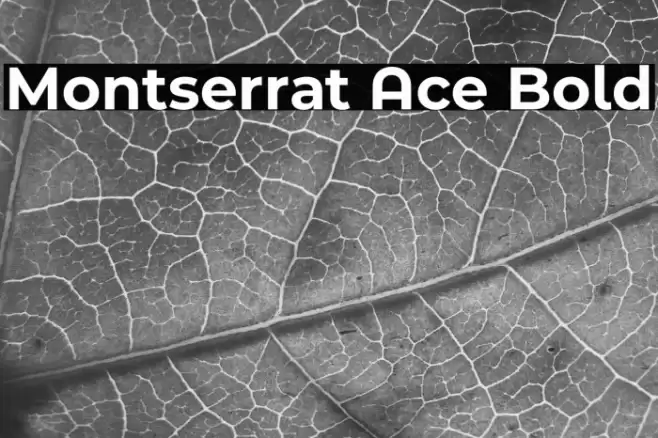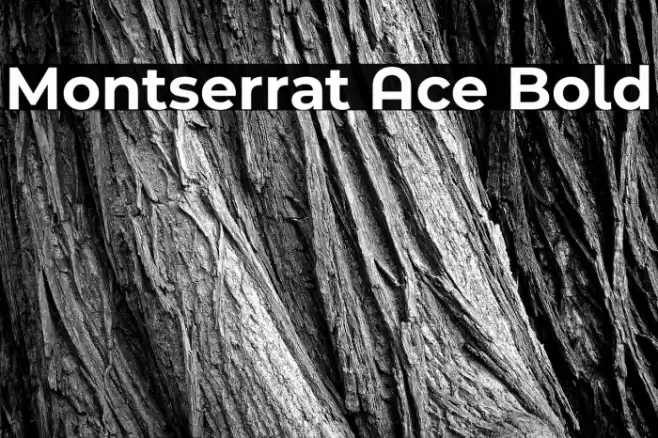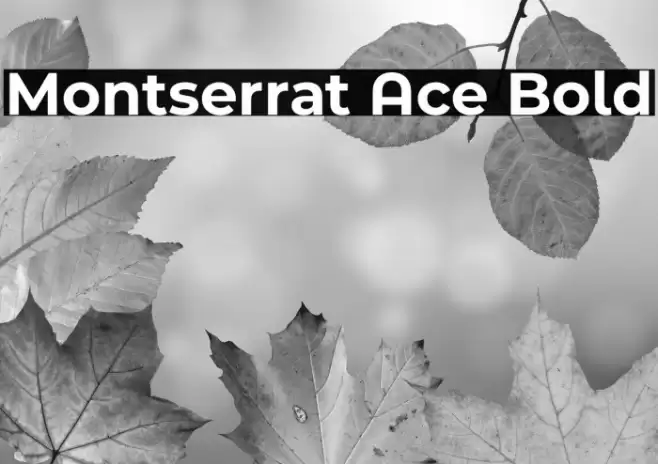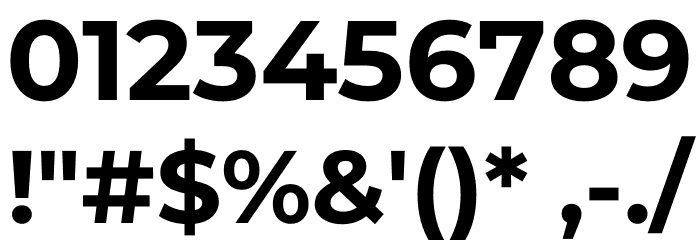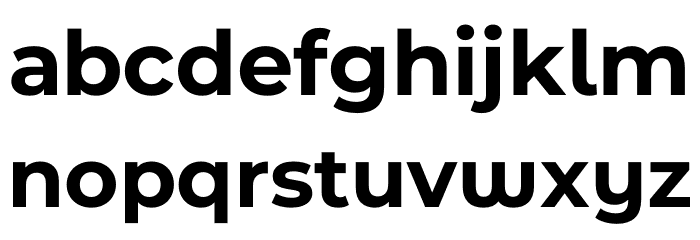
Montserrat Ace Bold Font
Montserrat Ace Bold Description
This typeface features a clean and modern sans-serif style, characterized by its geometric shapes and balanced proportions. The letters are bold and uniform, providing a strong visual impact. The uppercase and lowercase letters maintain a consistent width, contributing to a harmonious appearance. The numerals are clear and legible, making them suitable for various applications. Special characters are well-defined, enhancing the font's versatility. The overall design is sleek and contemporary, making it ideal for digital and print media.
A bold, modern sans-serif font with geometric shapes and balanced proportions from Sans Serif fonts.
- Proposed Projects: Ideal for branding, advertising, web design, and editorial layouts.
- Use Case: Headlines, Logos, Digital media